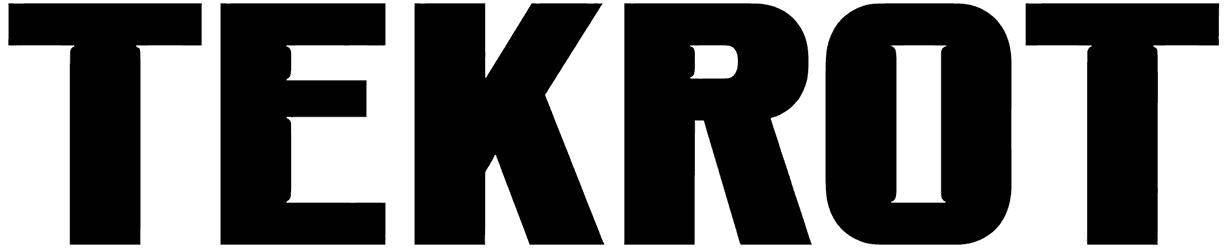
Tekrot Font
Who said a font is either serif or sans serif? Then what the hell is Tekrot… nailing its role as both? That’s one of the privileges of choosing a multi-style font. It goes all the way from this day back to the past as the serifs gradually appear at the end of the characters.
So it’s up to you whether you want it in its modern form or with a retro flavor for college designs or something like basketball videogame logos.